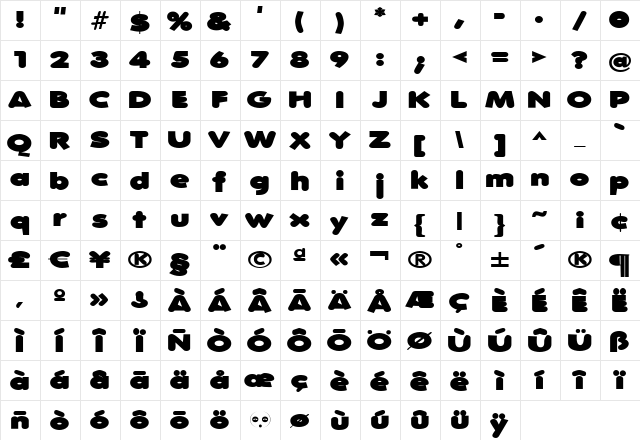
DeconstructaWide Regular
Design Context for DeconstructaWide Typeface
DeconstructaWide offers clean, dependable letterforms without strong stylistic allegiance, making it a practical choice for designers who need flexibility.